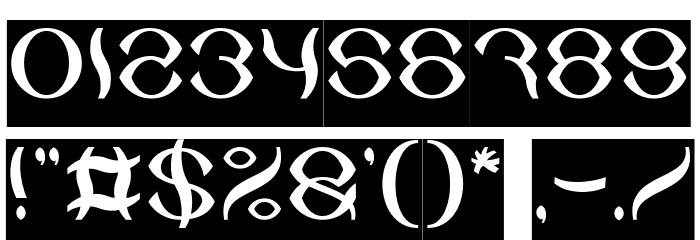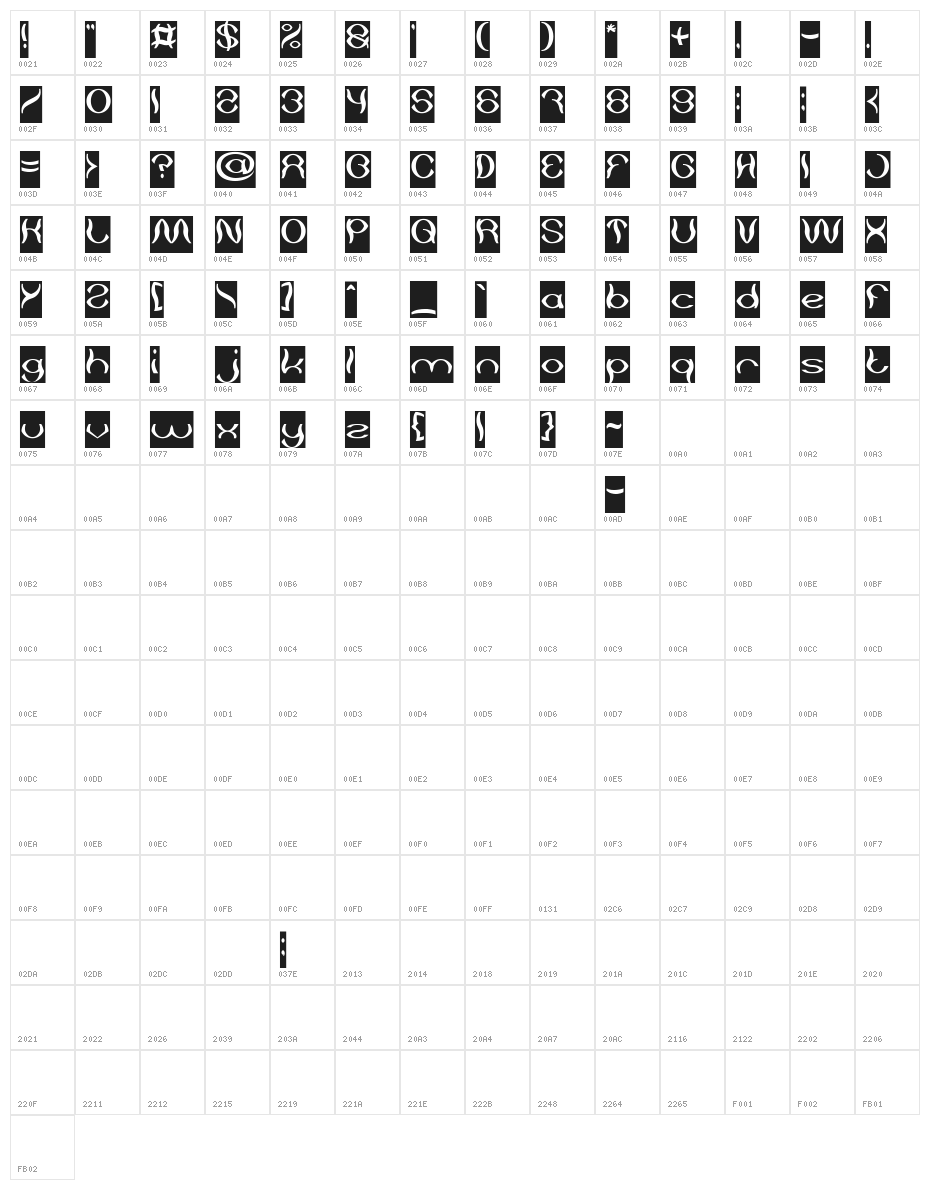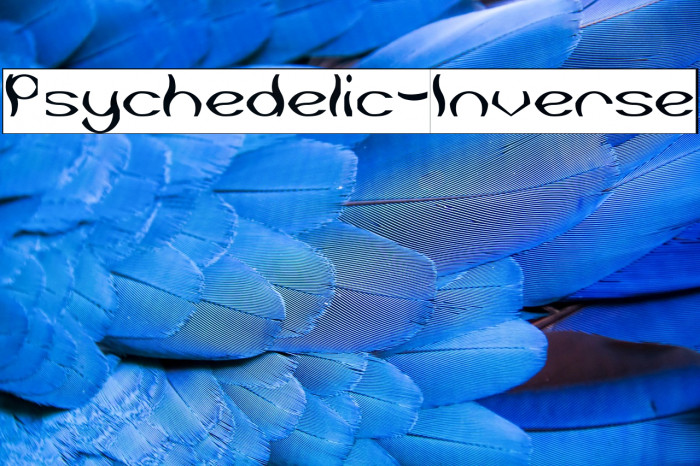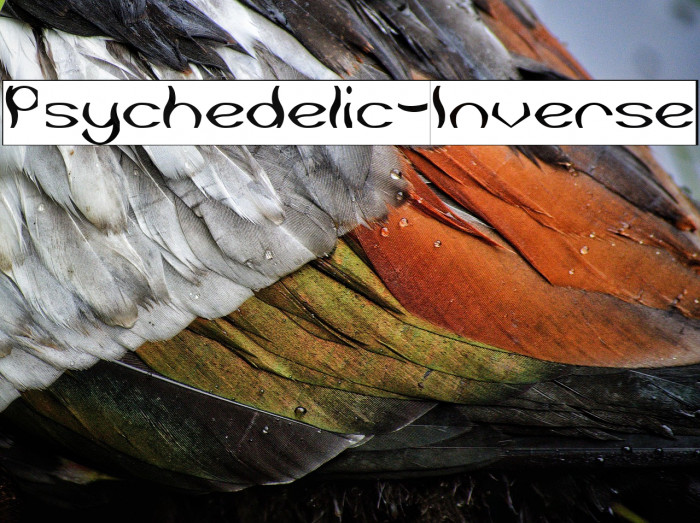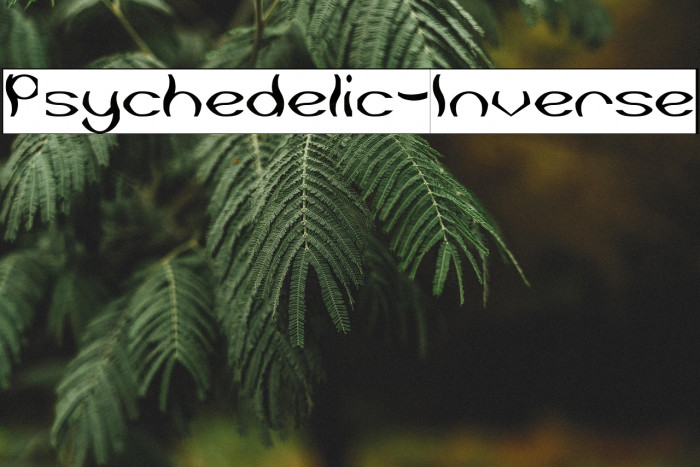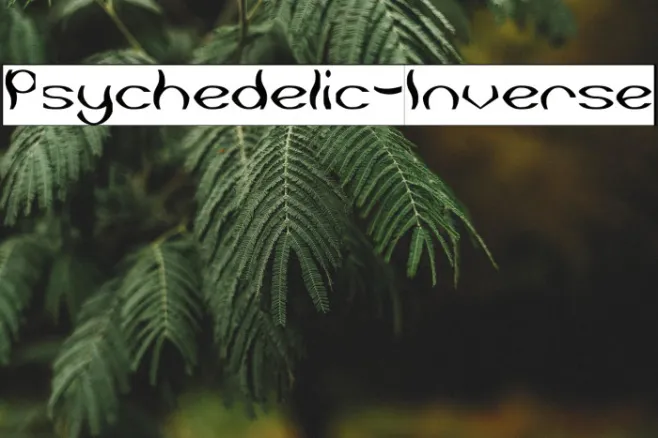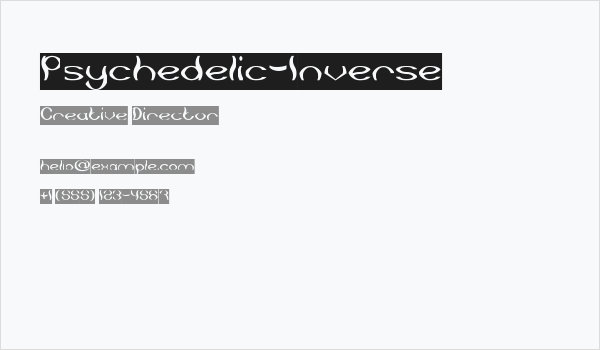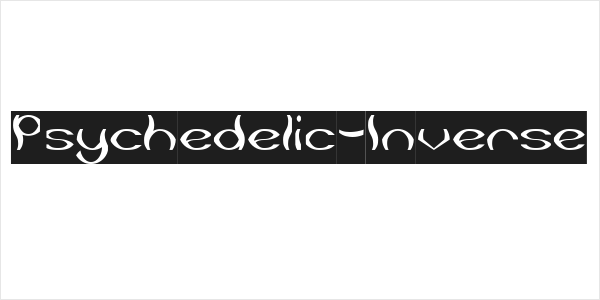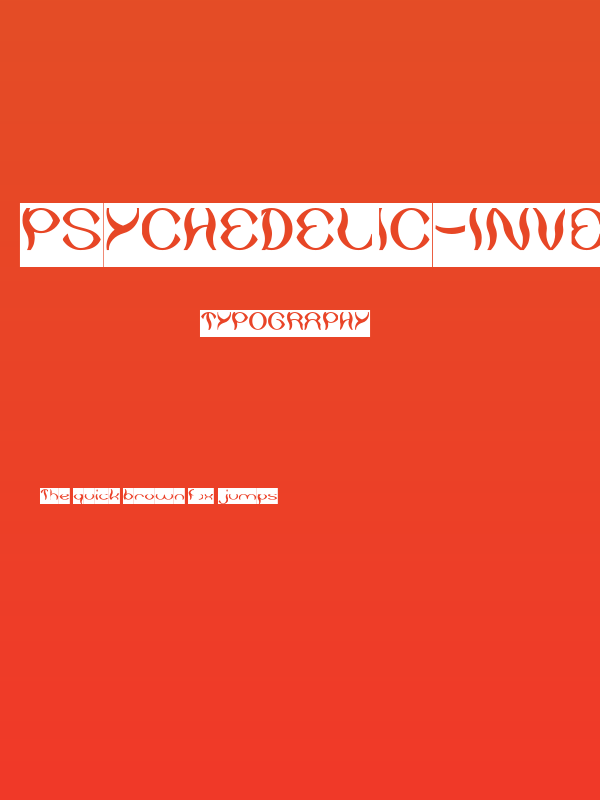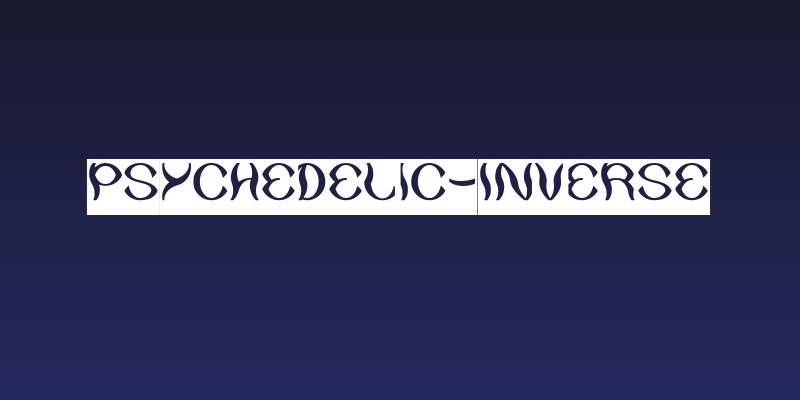
Psychedelic-Inverse Font
Psychedelic-Inverse Description
This font features a unique and artistic design with a psychedelic flair, characterized by its swirling, fluid shapes and bold, contrasting strokes. The letters exhibit a dynamic movement, with curves and loops that give an impression of motion and energy. The uppercase and lowercase letters maintain a consistent style, with exaggerated serifs and intricate detailing. The numbers and special characters follow the same aesthetic, ensuring a cohesive look across all glyphs. This font stands out with its decorative and expressive nature, making it ideal for creative and eye-catching designs.
| Overall Style | Psychedelic, Artistic, Decorative |
| Proposed Projects | Ideal for album covers, posters, branding for creative industries, and any project requiring a bold, artistic statement. |